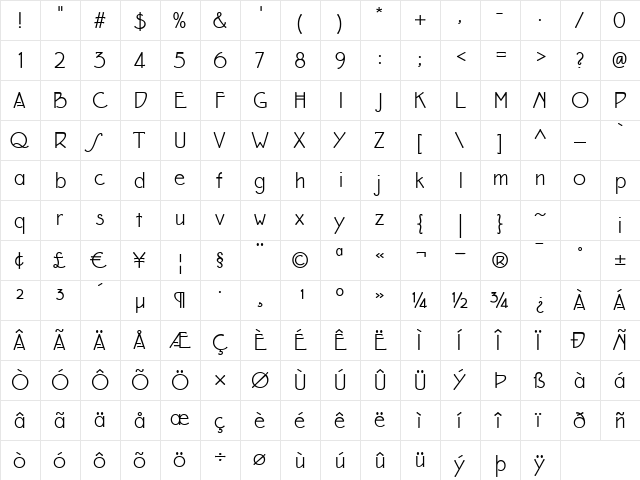
P22 Eaglefeather Regular
| Foundry | P22 type foundry |
| Designer | David Siegel and Carol Toriumi-Lawrence |
Design Context for P22 Eaglefeather Typeface
P22 Eaglefeather takes a measured approach to typography — its balanced proportions and neutral character make it a reliable workhorse for both digital and print work.